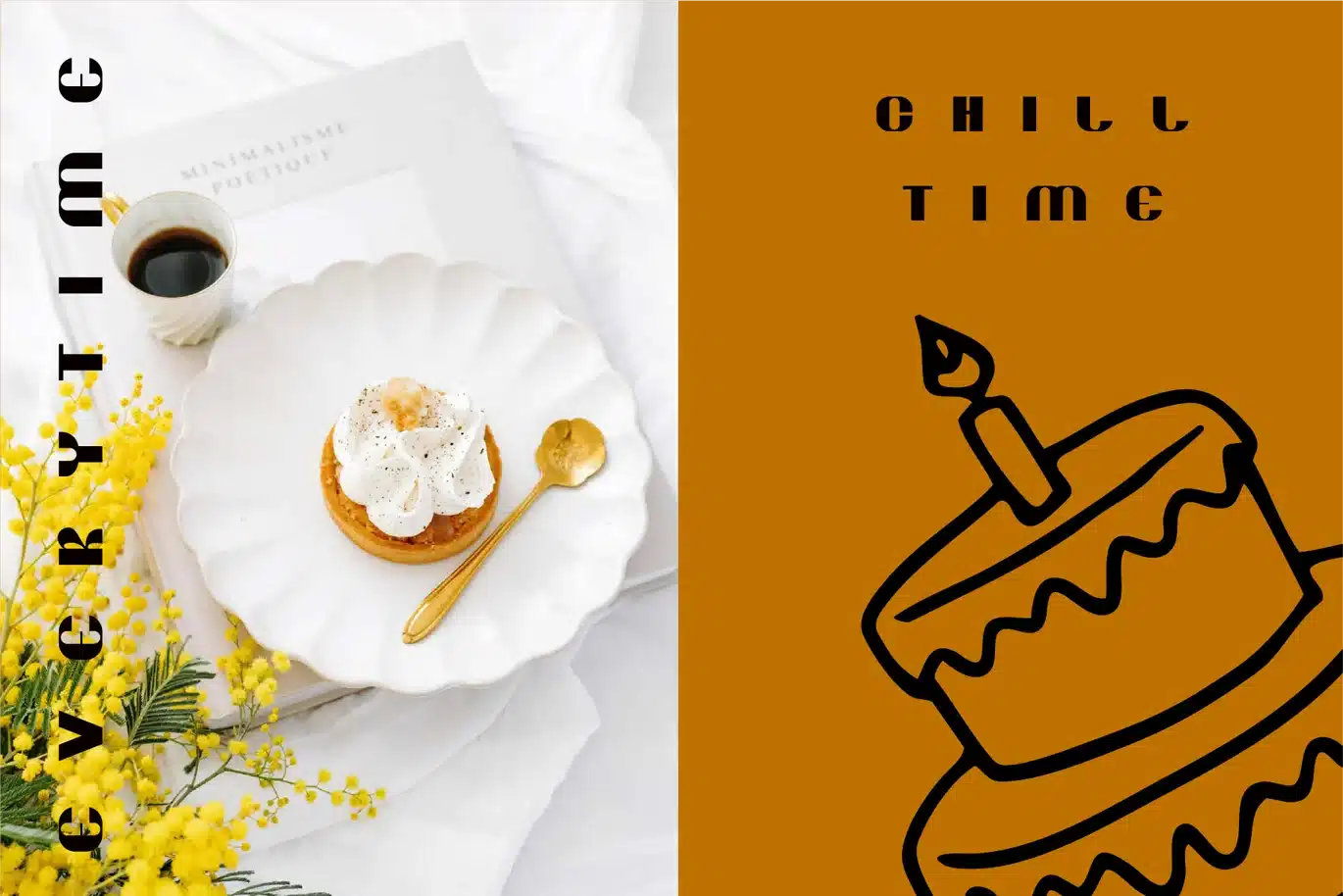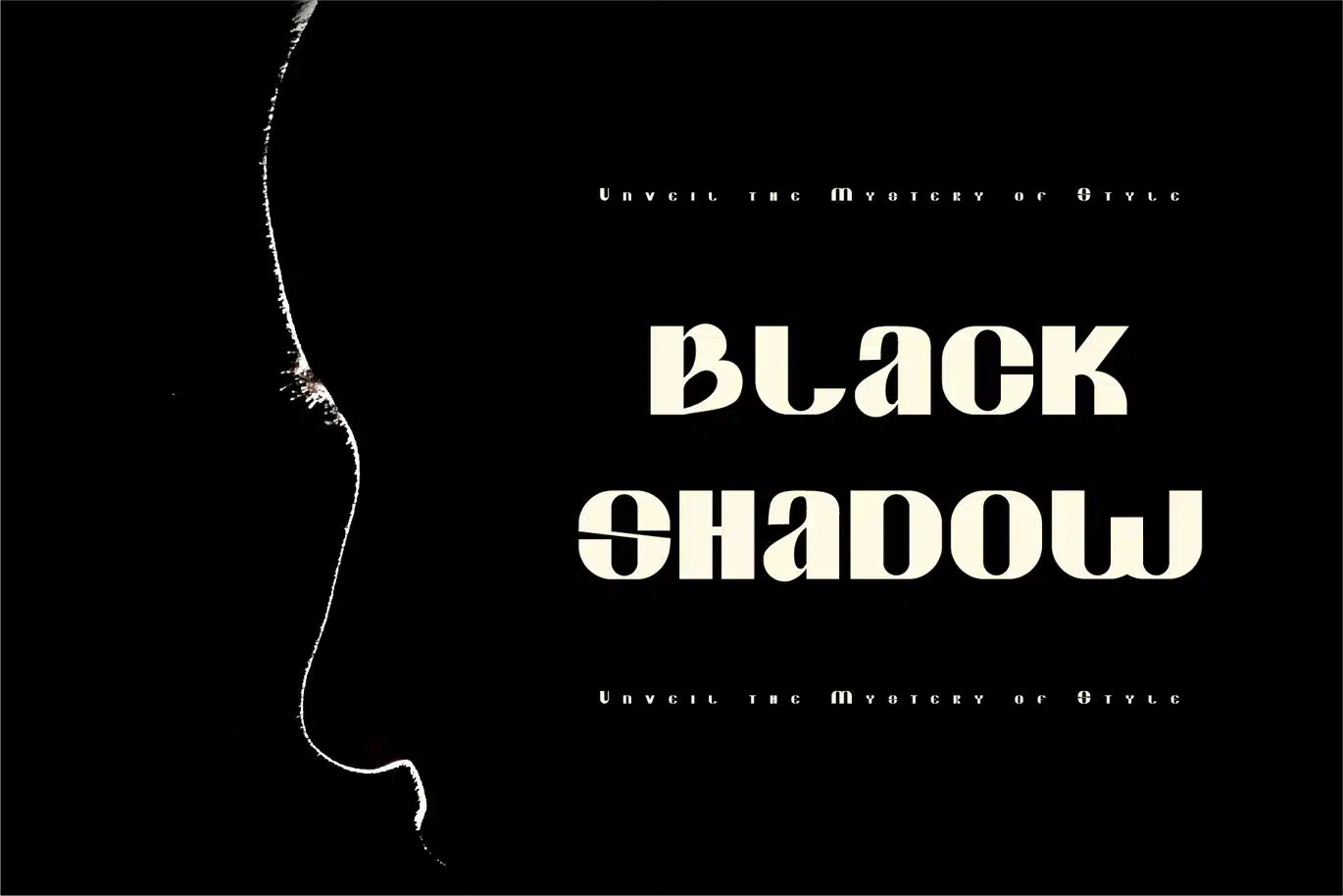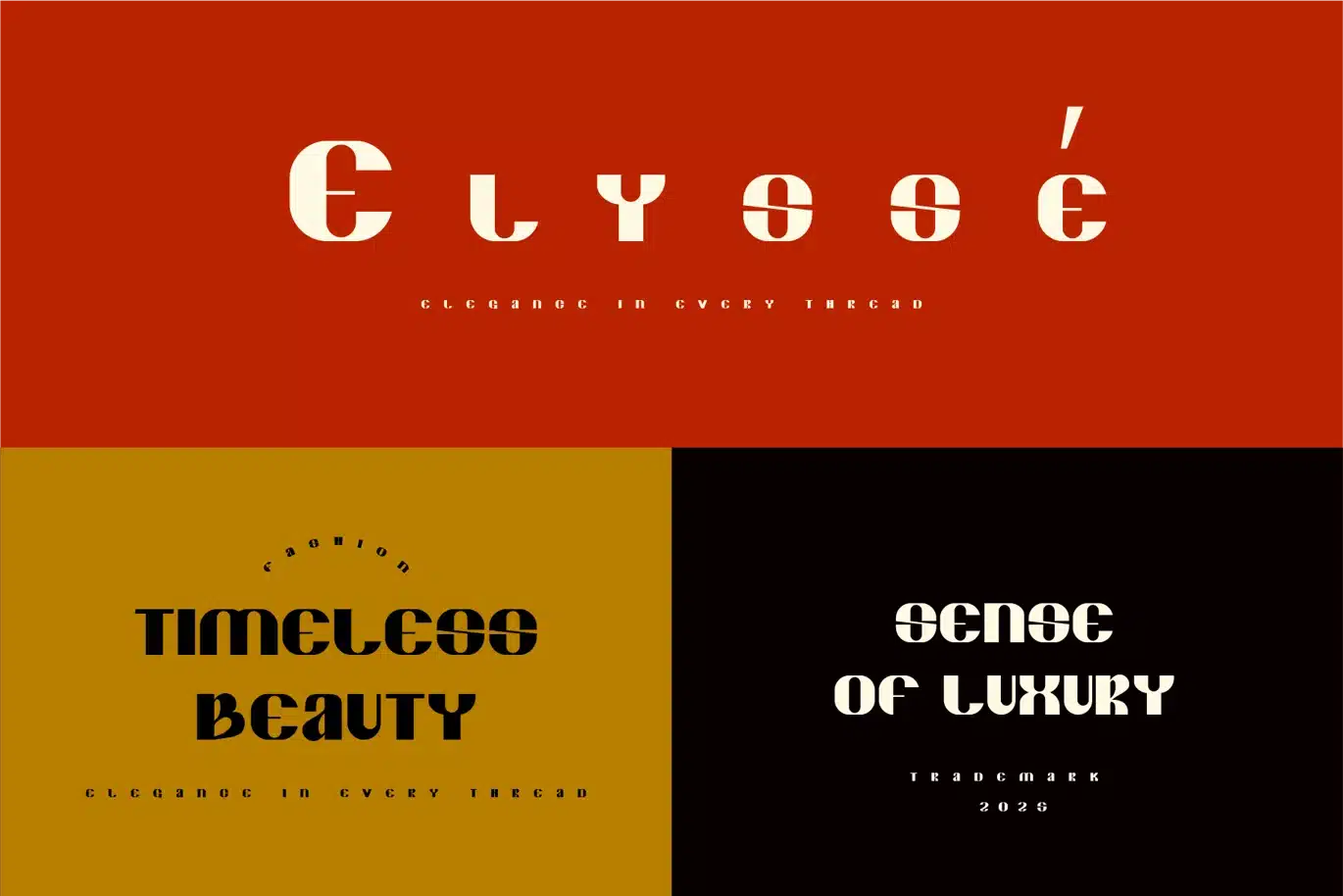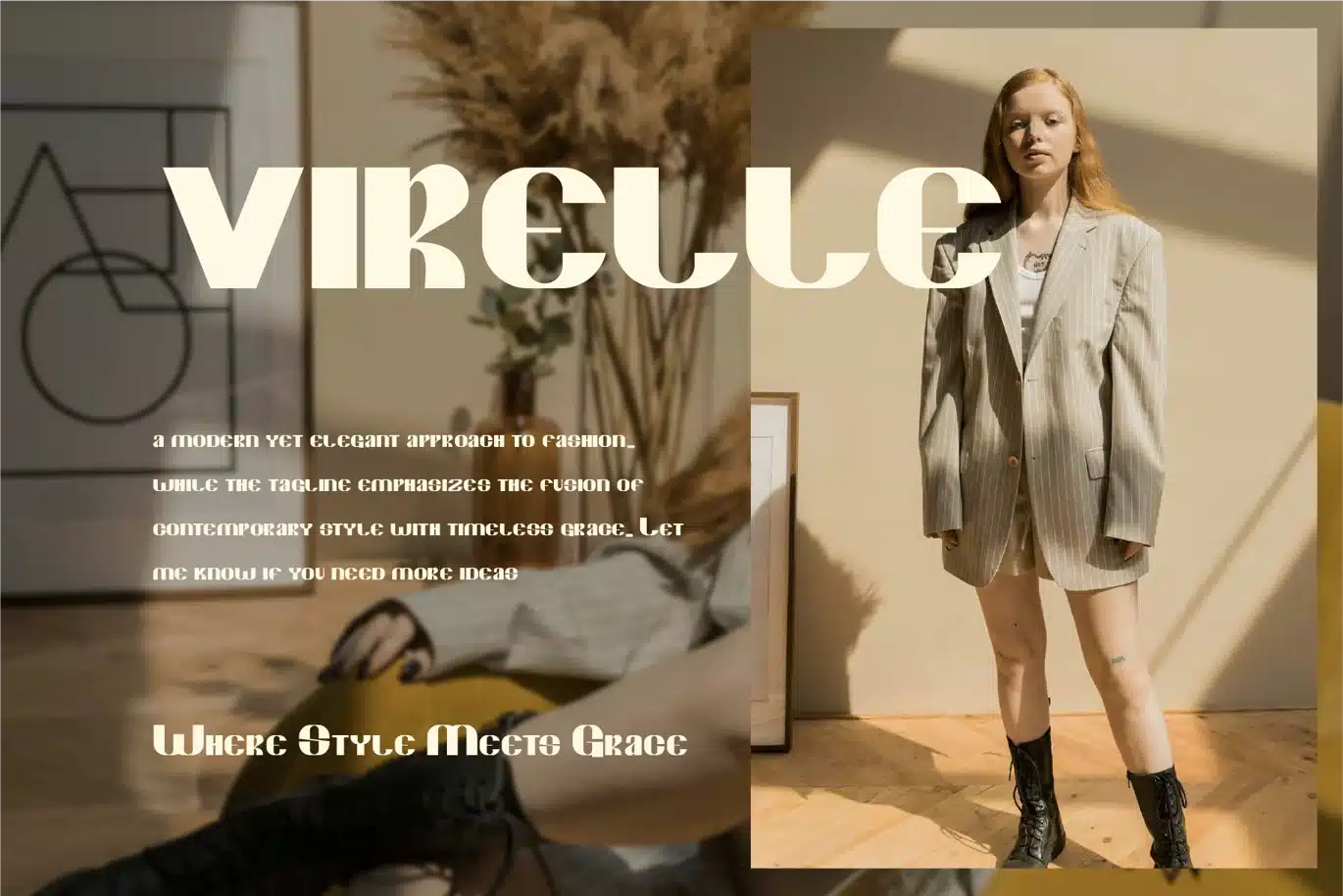
Cerisa – A Bold Sans Serif Font
Cerisa is a sans serif font designed to embody sophistication and timeless elegance. With its carefully crafted strokes and distinctive serifs, Kyntra offers a perfect balance of tradition and modernity. The font’s clean lines and refined detailing make it ideal for both formal and creative uses, from high-end branding to editorial designs.